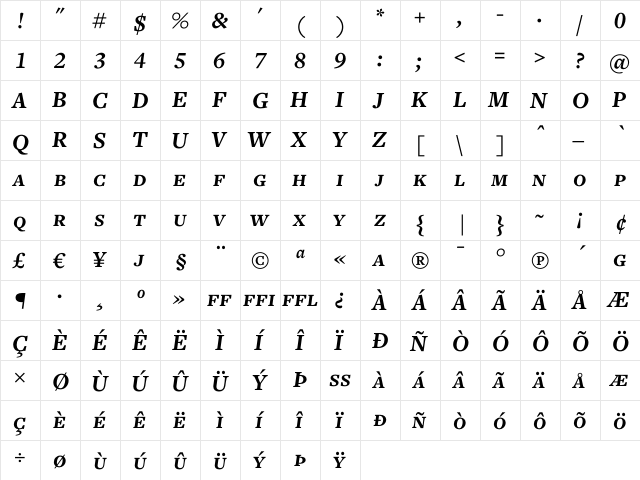
Freight Text Bold Italic SC Font Preview
| Foundry | Joshua Darden & Phil's Fonts, Inc |
| Designer | Joshua Darden |
Design Context for Freight Typeface
Freight takes a measured approach to typography — its balanced proportions and neutral character make it a reliable workhorse for both digital and print work. The slanted form adds forward momentum and visual energy. The heavy weight commands attention and anchors typographic hierarchies.
Pro Tip: Try Freight for annotation and caption copy alongside an upright companion — the contrast in angle creates a dynamic but ordered typographic system.